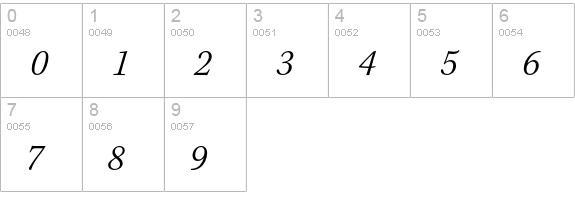
Kepler Std Light Semicondensed Italic Font Details
Kepler Std Light Semicondensed Italic is a refined, elegant, italic variant in the Kepler typeface family \xE2\x80\x94 well suited to elegant body text, refined sub-headings, and luxury branding.
Kepler Std Light Semicondensed Italic is a beautifully crafted font that combines elegance with modernity. Its slim and sleek design is perfect for projects that require a sophisticated touch. The italicized style adds a touch of creativity and playfulness to any text. This font is incredibly versatile, making it suitable for a wide range of design projects. Whether you're working on a logo, website, or print material, Kepler Std Light Semicondensed Italic will bring a touch of refinement to your work. One of the best things about Kepler Std Light Semicondensed Italic is that it is freely available to download at FontsMarket.com. This means that you can use this font without any restrictions, allowing you to unleash your creativity without worrying about licensing fees. The clean and clear lines of Kepler Std Light Semicondensed Italic make it highly readable, even at smaller sizes. This makes it perfect for body text, captions, or any other situation where legibility is key. Its semi-condensed form also makes it ideal for fitting more text into limited spaces, without sacrificing readability. Whether you're a professional designer or a hobbyist, Kepler Std Light Semicondensed Italic is a font that will elevate your work to new heights. Its timeless design and freely available nature make it a must-have for anyone looking to add a touch of elegance to their projects. So why wait? Download Kepler Std Light Semicondensed Italic today and start creating stunning designs that are sure to leave a lasting impression.